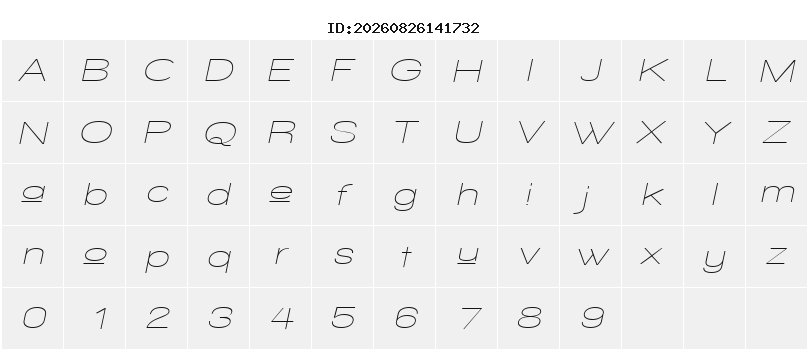
About Walkway Upper Oblique Expand.ttf
Walkway Upper Oblique Expand.ttf is a modern, elegant sans-serif font designed for ultimate readability and visual harmony. Perfect for branding, headlines, web design, and print materials.